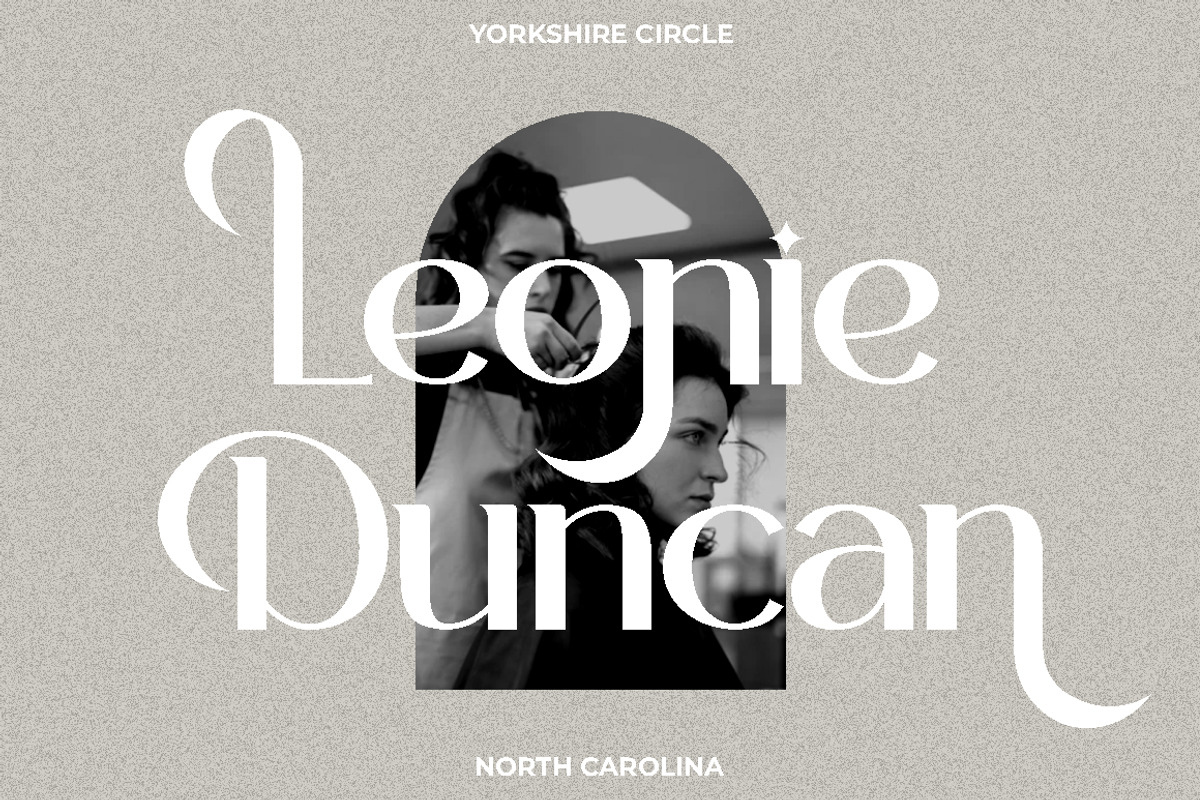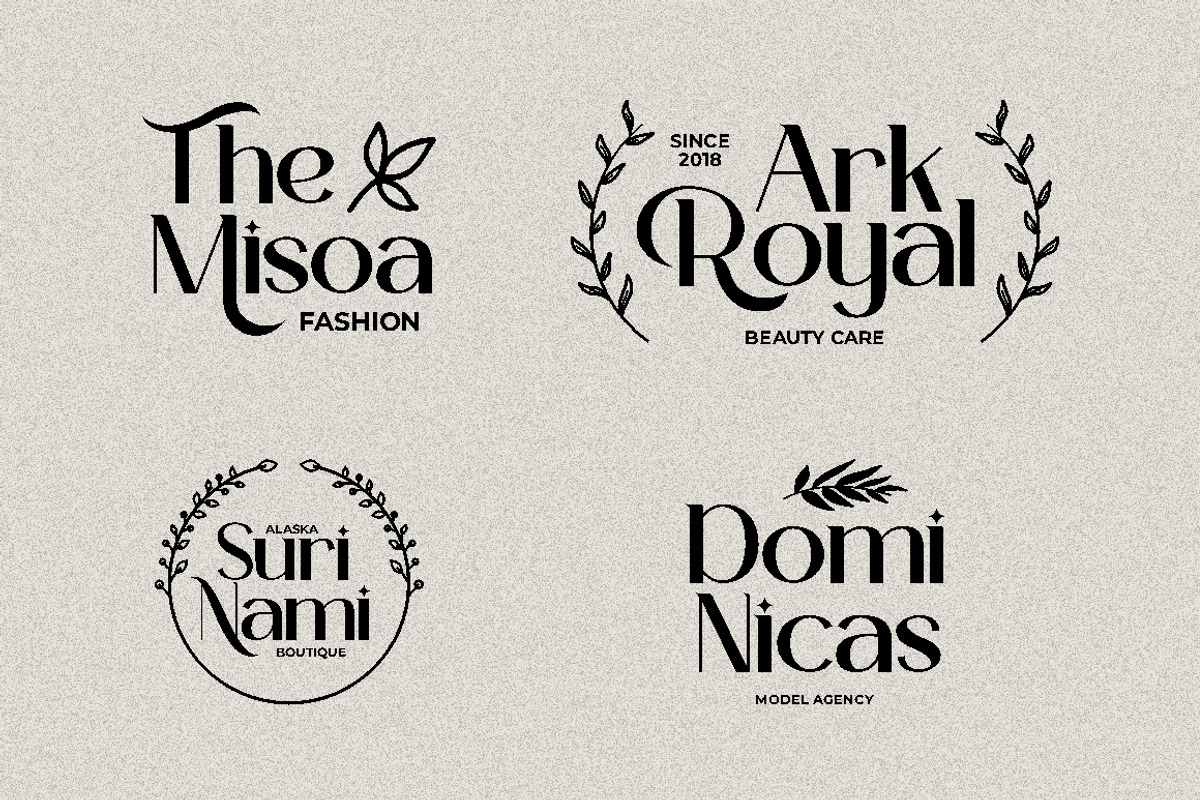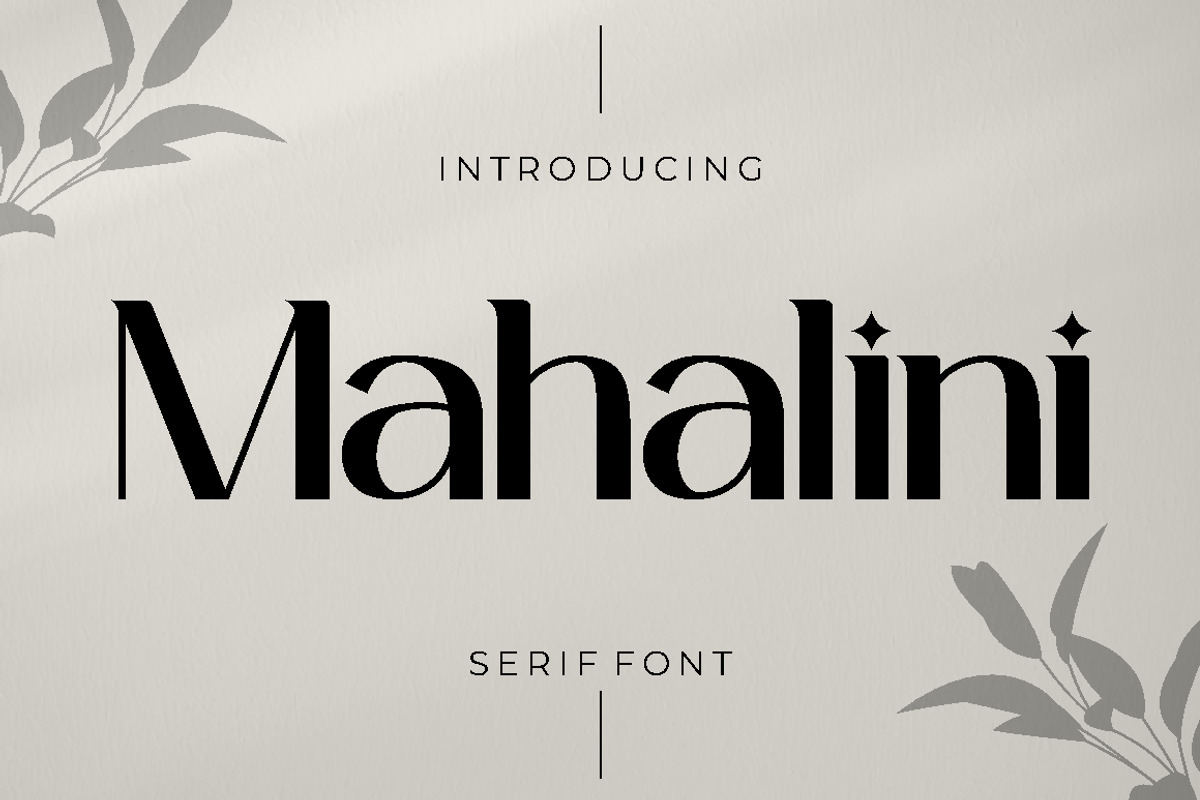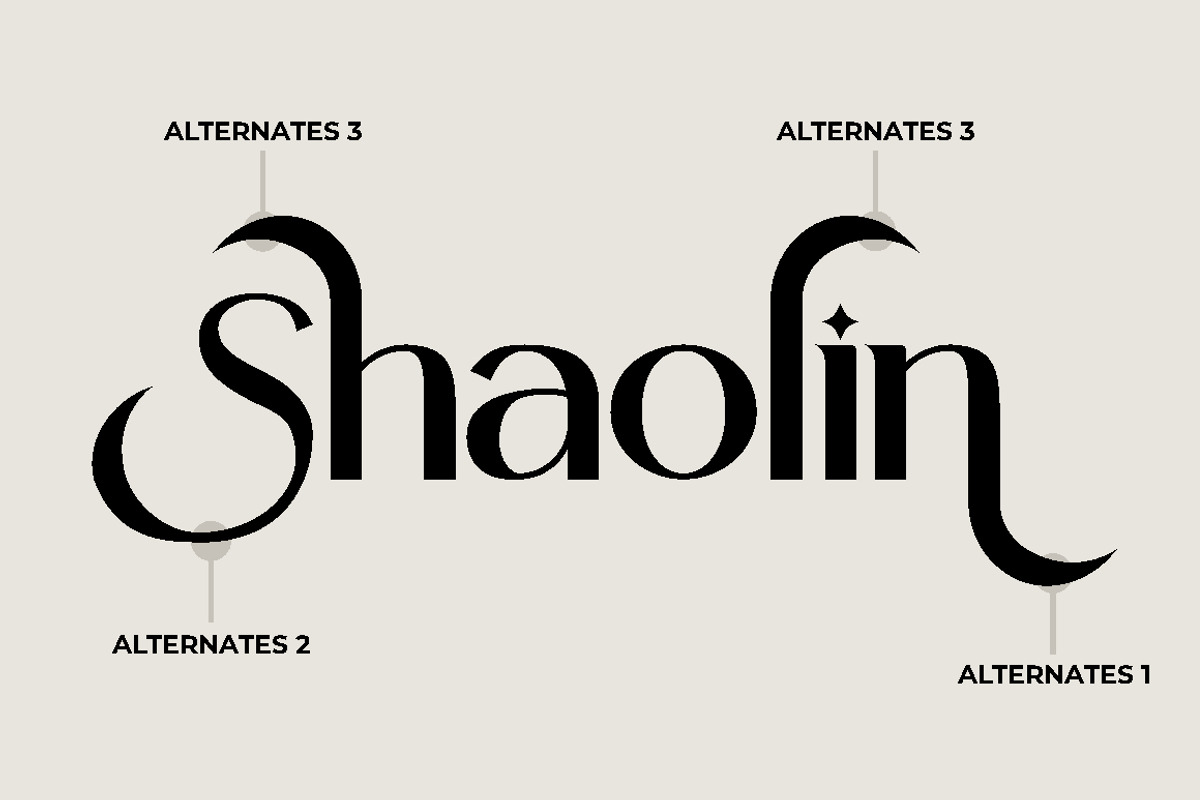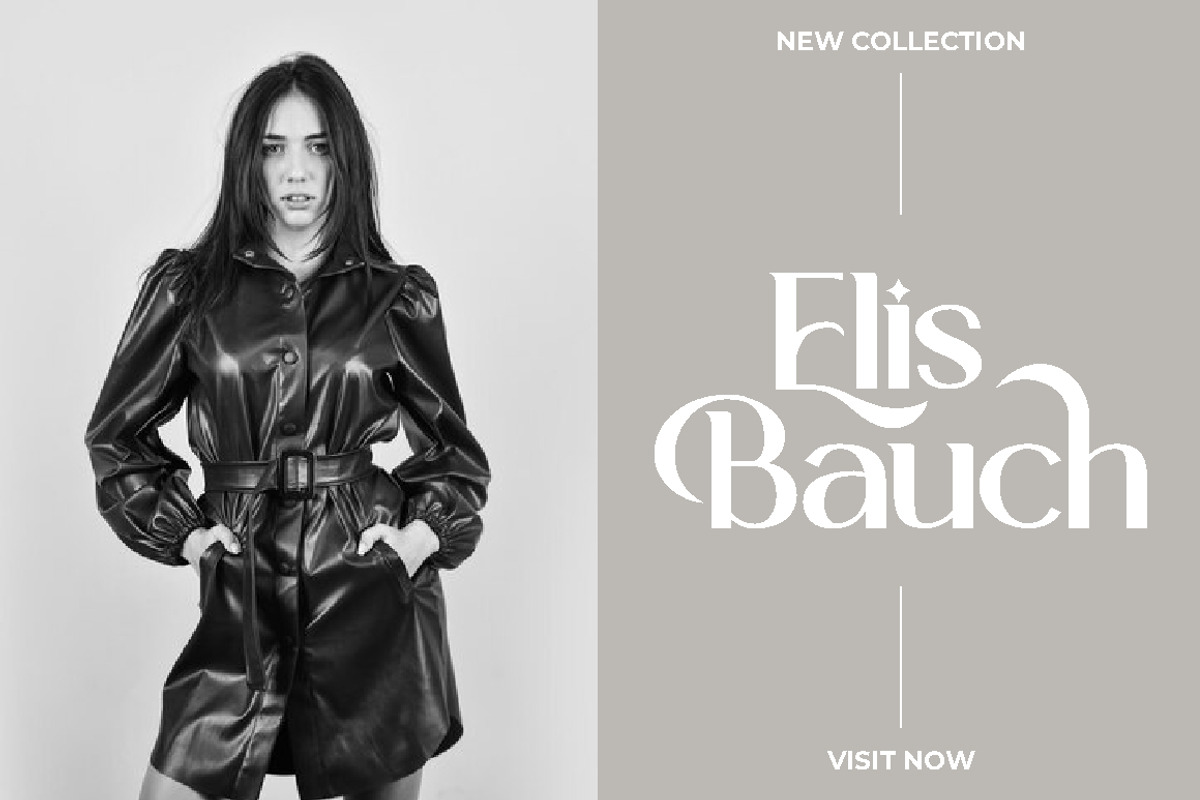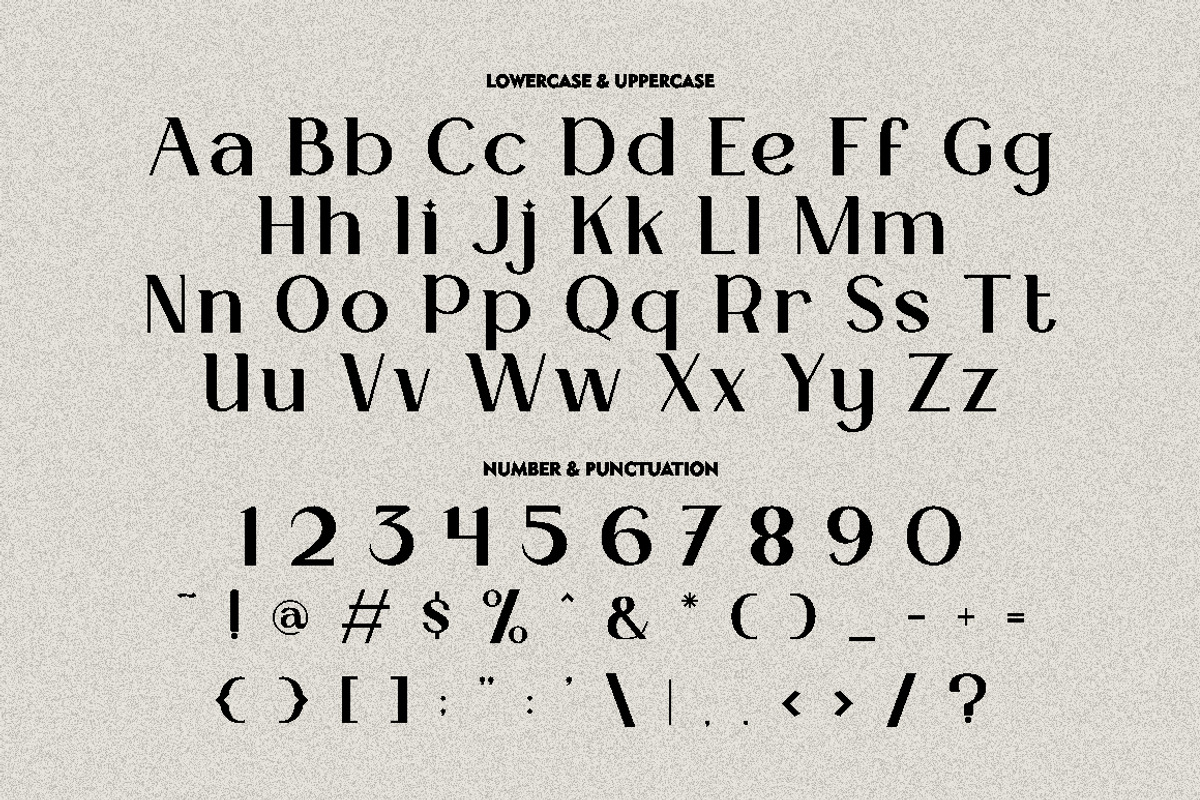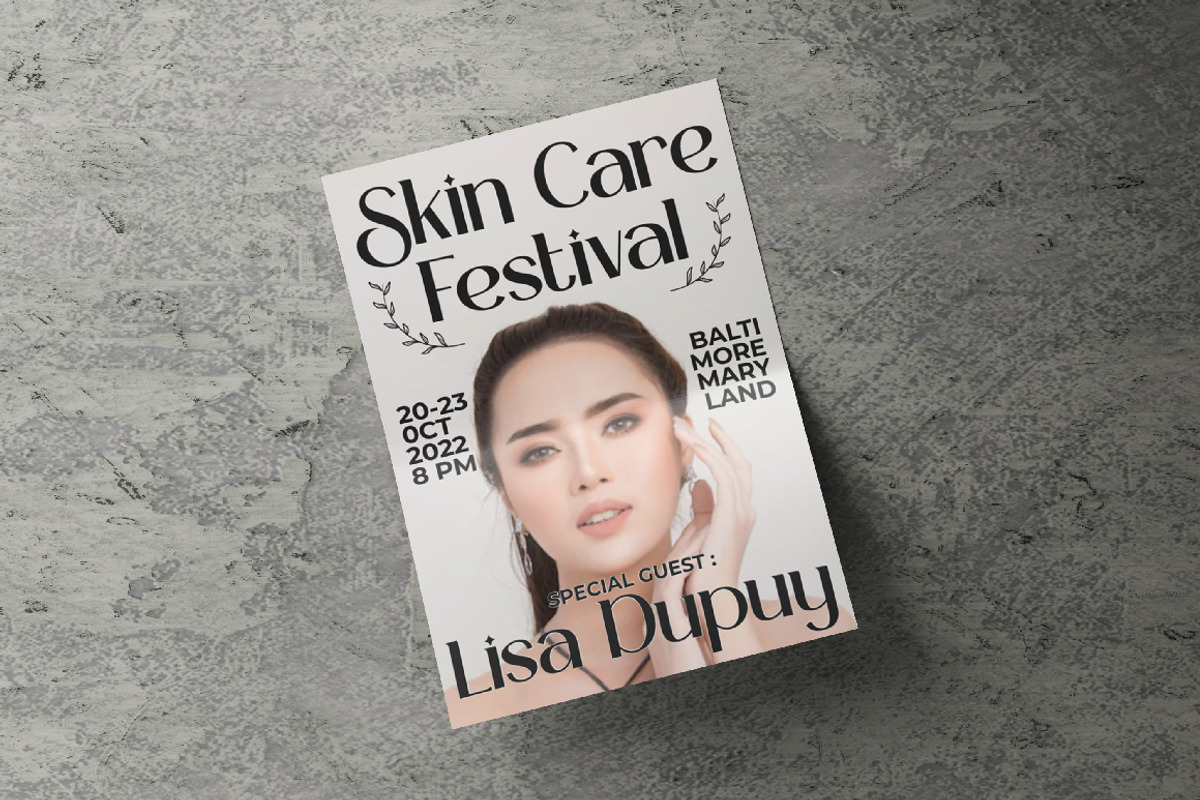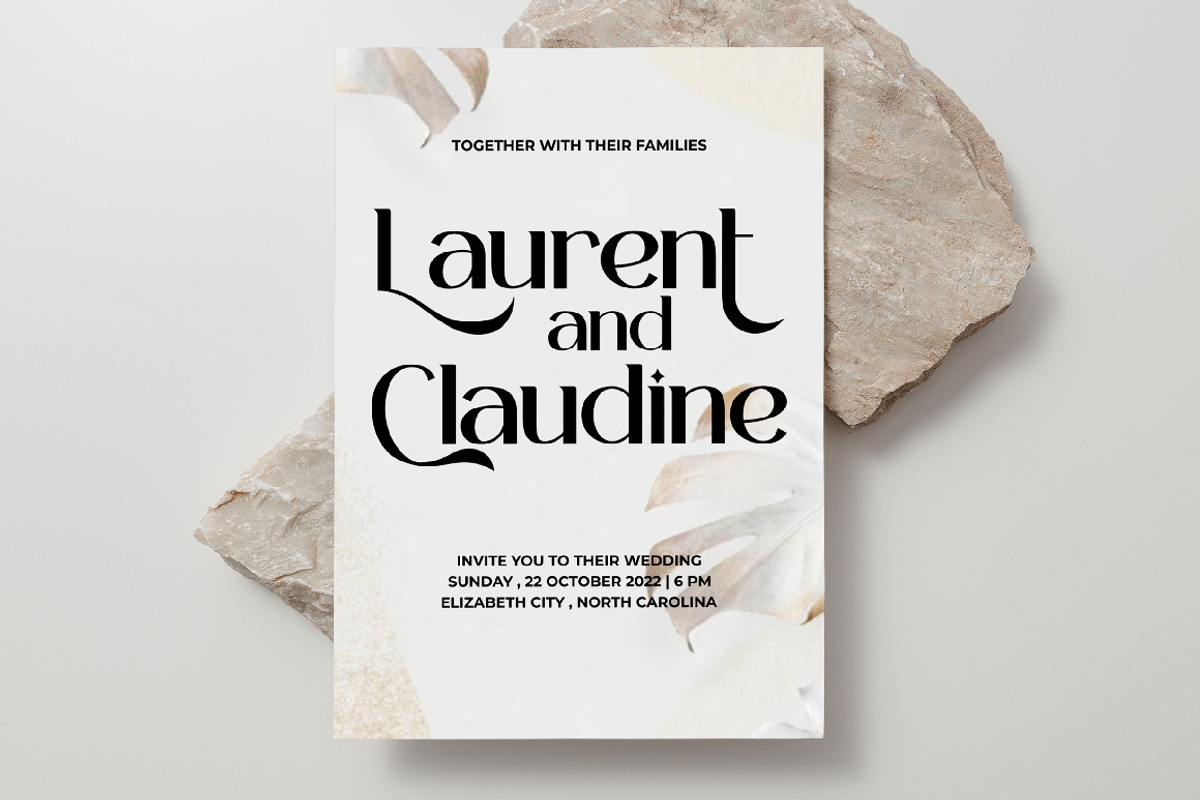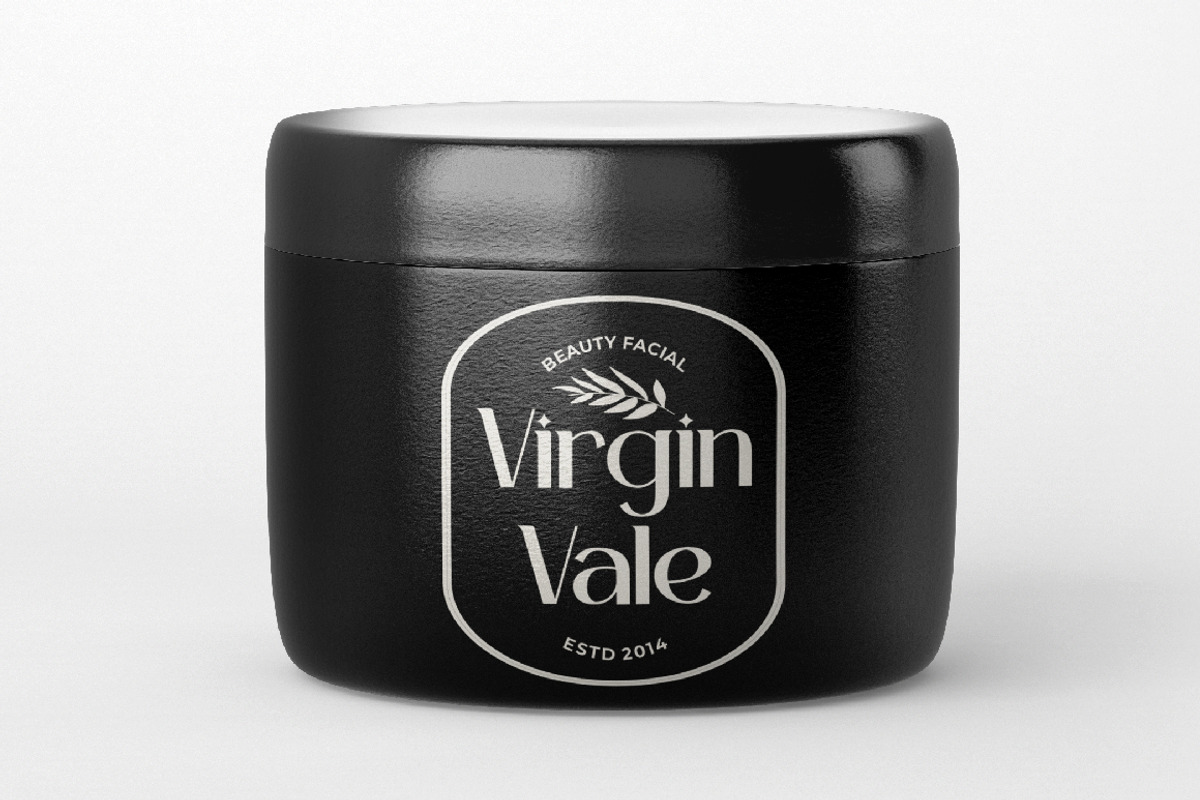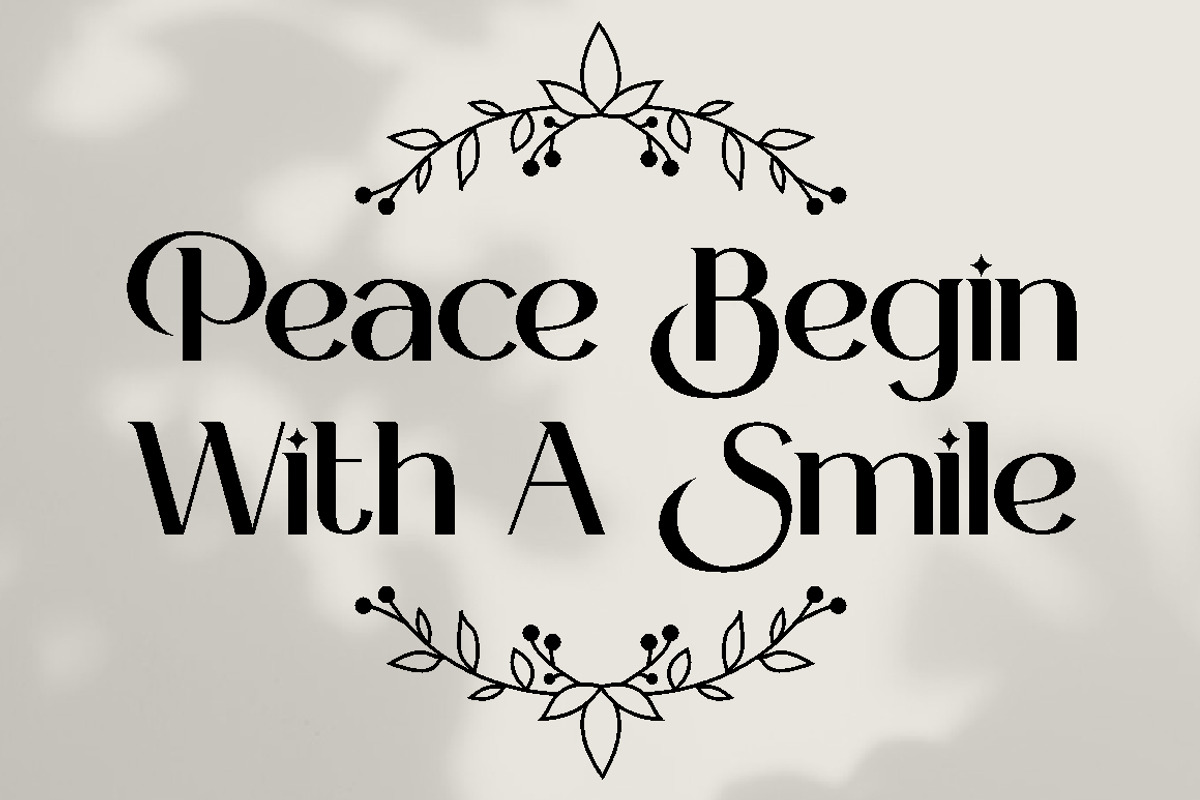
Mahalini - Serif Font
Mahalini is a luxurious serif font that adds a touch of elegance and sophistication to any project. Its timeless and classic design makes it a perfect choice for high-end fashion, beauty, and luxury branding. Mahalini was created with the idea of a sophisticated and versatile typeface that can be used in various design projects.
For those who are looking for a font that will elevate their design and branding, Mahalini is the perfect choice. It is ideal for logos, book covers, posters, flyers, digital design, and any other projects that require a touch of luxury and elegance. The font's stylish and sophisticated look will make any product stand out and create a lasting impression on the audience.
Mahalini comes with various features that make it a versatile and reliable choice for designers. The font includes uppercase and lowercase letters, as well as opentype alternates and ligatures. Additionally, it supports multiple languages and includes number, punctuation, and symbols. These features make it easy to create a professional and elegant design with ease.
If you are looking for a font that will add elegance and luxury to your design, Mahalini is the perfect choice. Its timeless and classic design, combined with its versatility and sophistication, makes it a reliable and valuable addition to any designer's toolkit.
In summary, Mahalini is a luxurious serif font that is perfect for high-end fashion, beauty, and luxury branding. Its classic design and versatile features make it a reliable choice for any design project. With its multiple file formats and multilanguage support, Mahalini is the perfect choice for any designer looking for an elegant and sophisticated font.